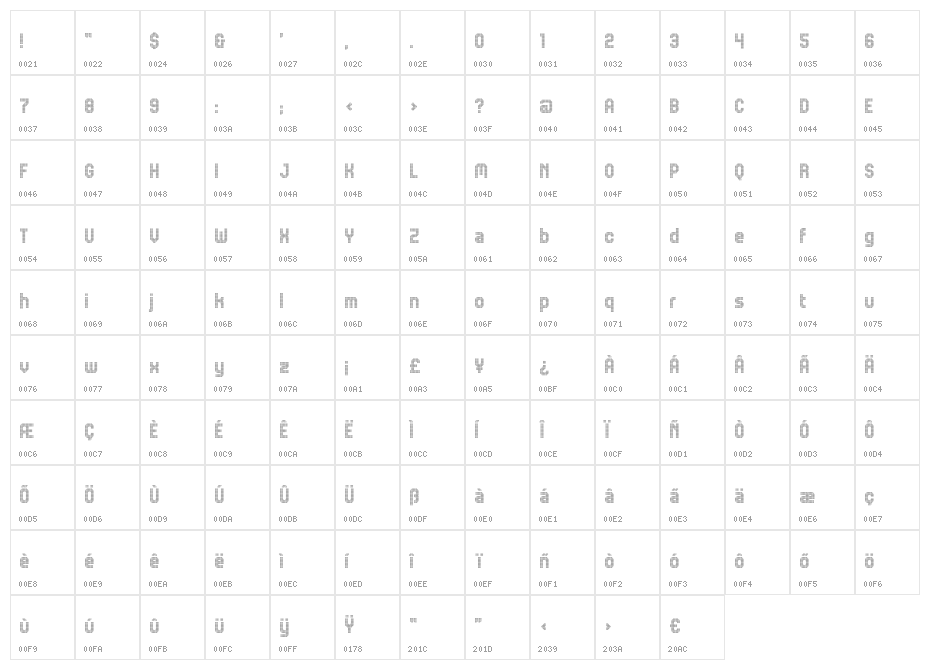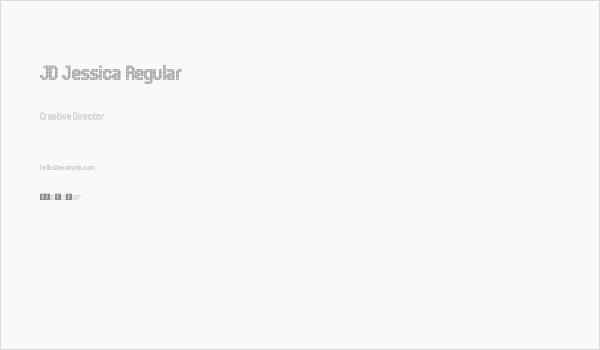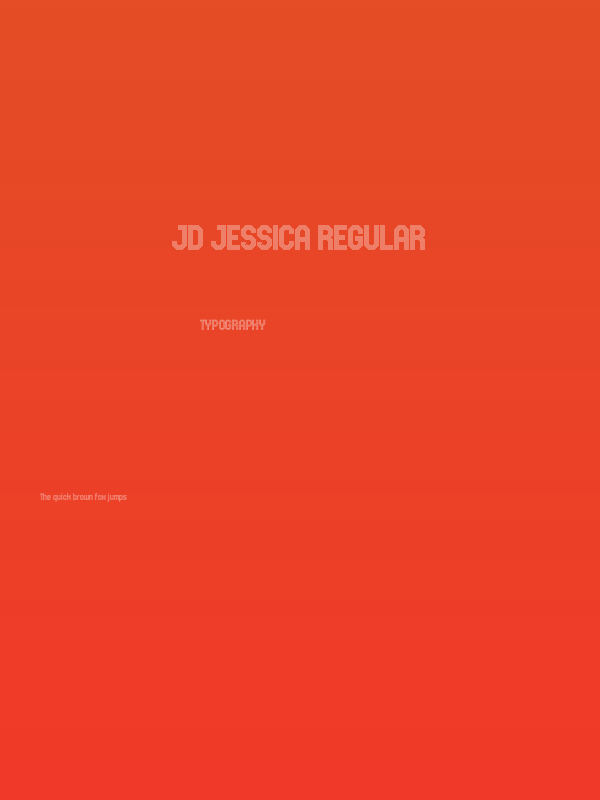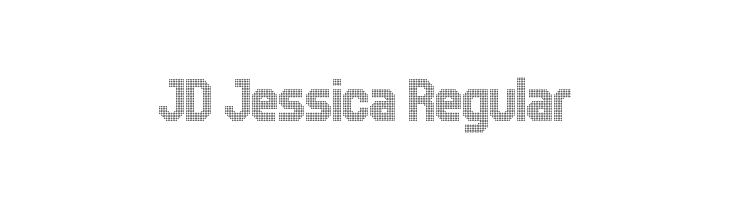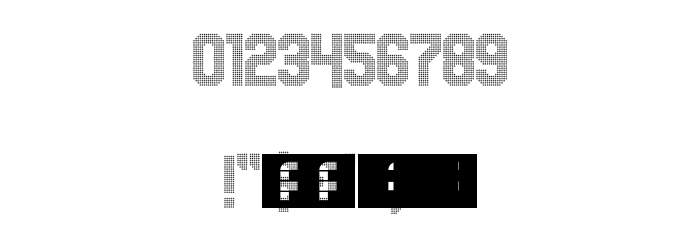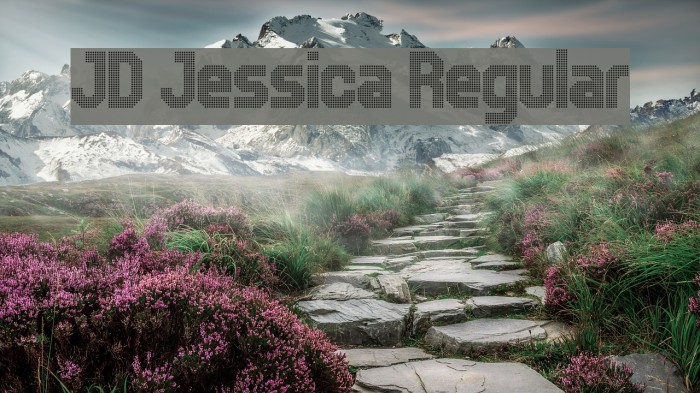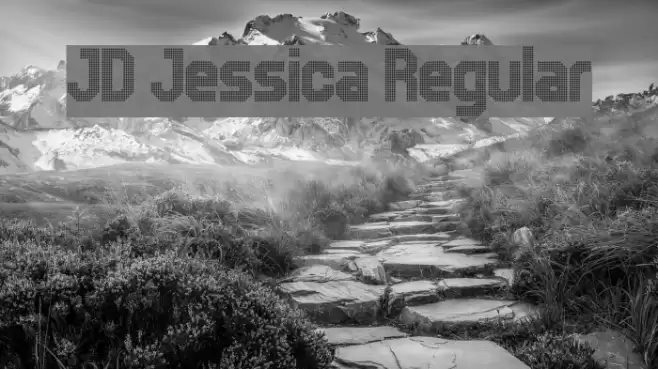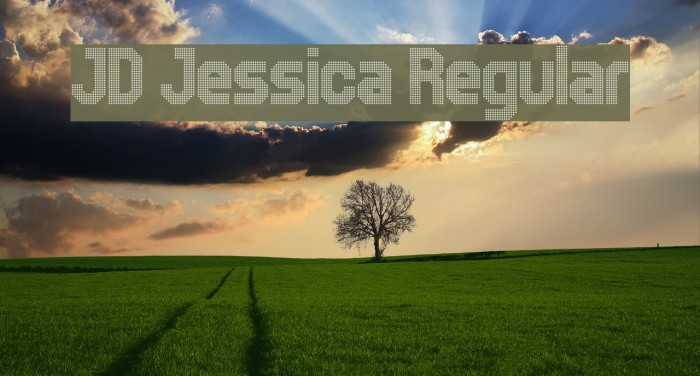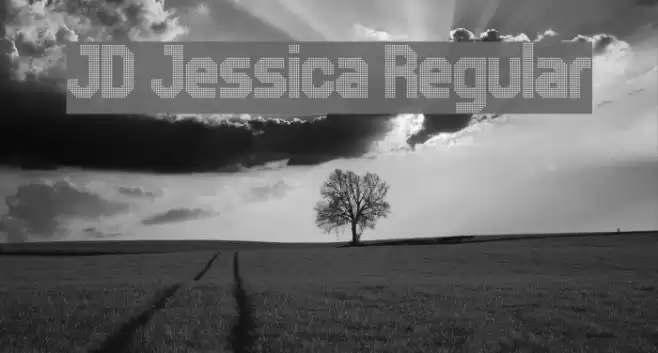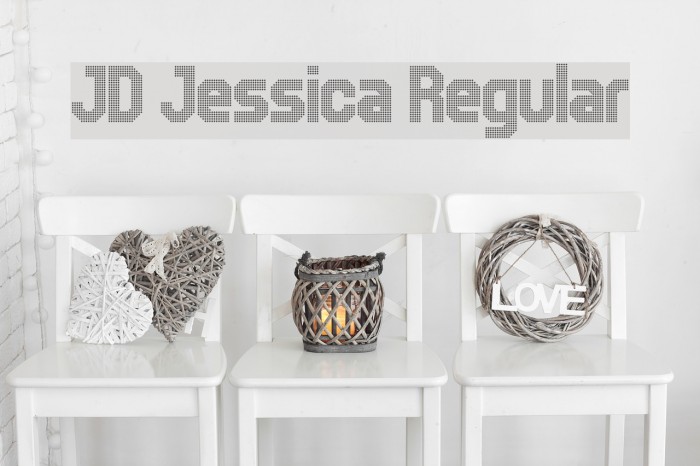
JD Jessica Regular Font
JD Jessica Regular Description
This font features a unique dotted pattern that gives it a digital, pixelated appearance. The characters are bold and have a geometric structure, with consistent spacing and uniformity across both uppercase and lowercase letters. The numbers and special characters maintain the same stylistic approach, ensuring a cohesive look. This design is reminiscent of early digital displays, making it ideal for projects that require a retro or tech-inspired aesthetic.
| Proposed Projects | Ideal for digital art, retro-themed designs, tech-related branding, and creative posters. |